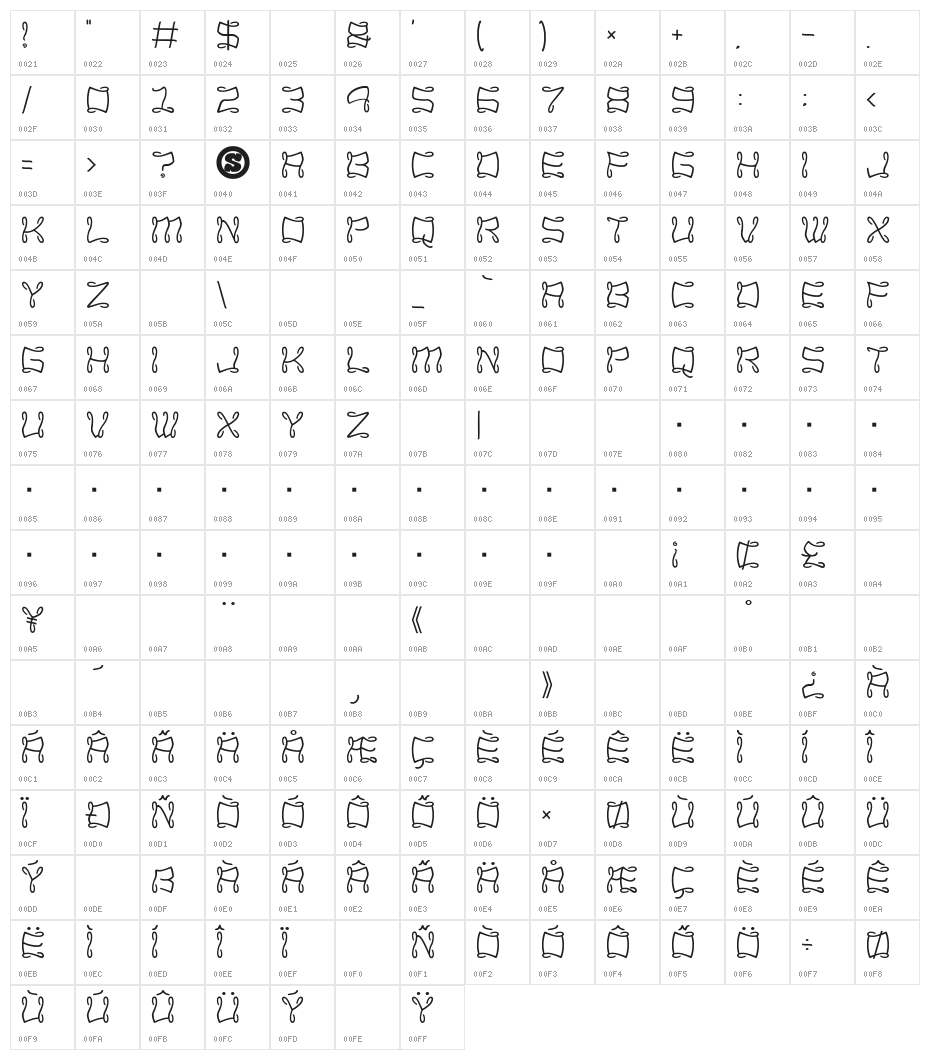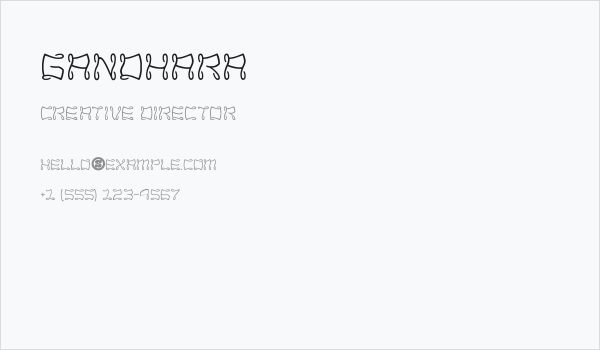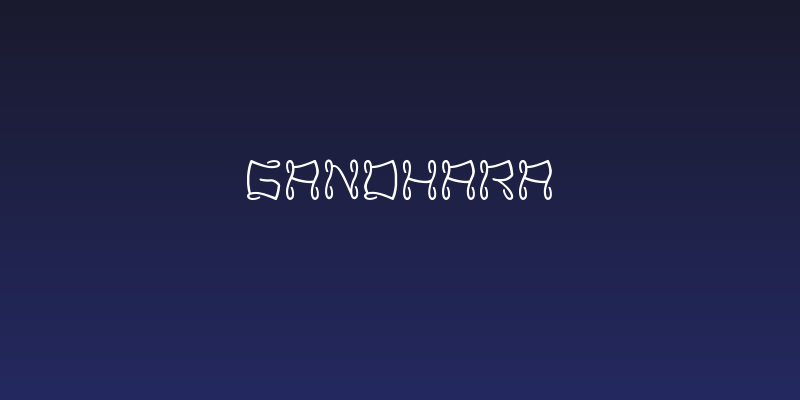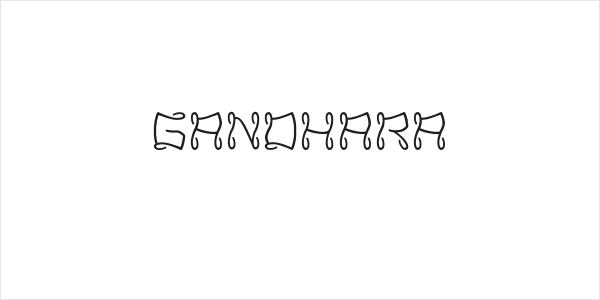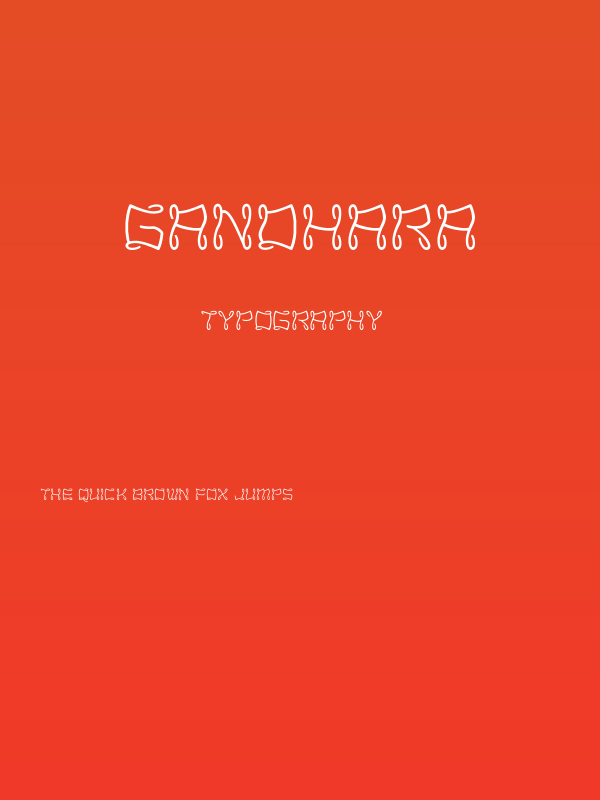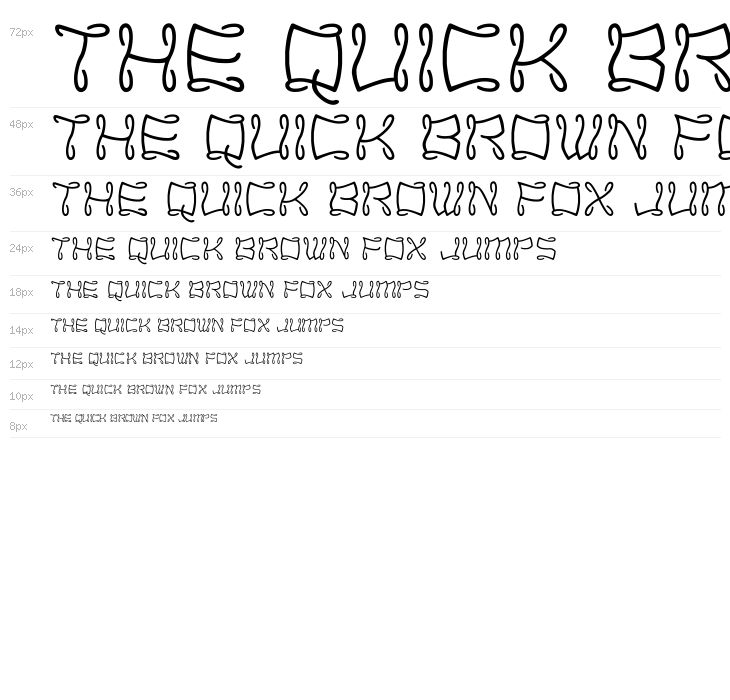
Gandhara Font
Gandhara Description
This font features a unique and decorative style with a playful twist. Each character is adorned with elegant, swirling embellishments that give it a whimsical and artistic flair. The strokes are consistent in thickness, providing a balanced and harmonious appearance. The uppercase and lowercase letters maintain a cohesive design, while the numbers and special characters integrate seamlessly with the overall aesthetic. This font's intricate details make it stand out, offering a creative and eye-catching option for various design projects.
GANDHARA UPPERCASE
GANDHARA LOWERCASE
GANDHARA OTHER CHARS
| Use Case | Logos, Posters, Invitations |
| Proposed Projects | Ideal for creative projects such as invitations, posters, branding, and artistic designs where a unique and decorative touch is desired. |